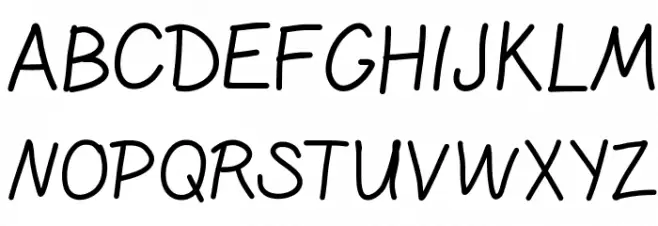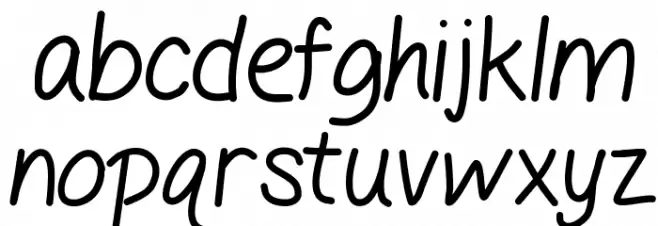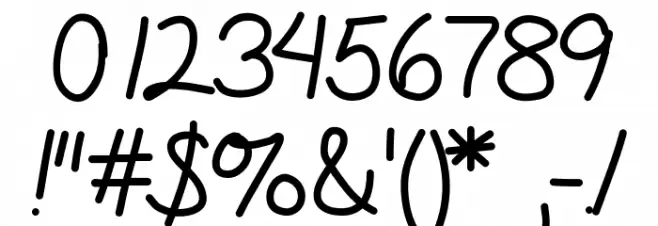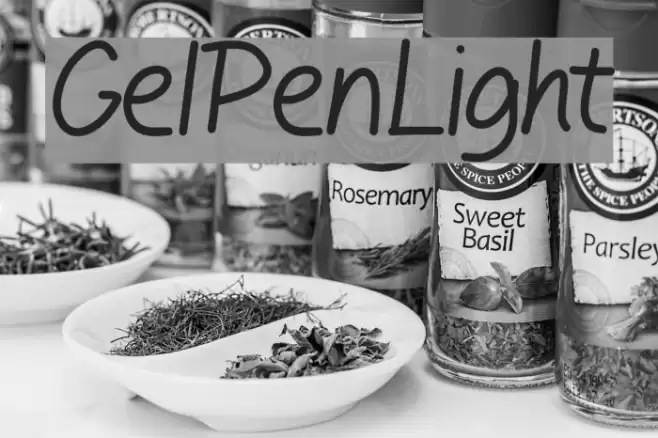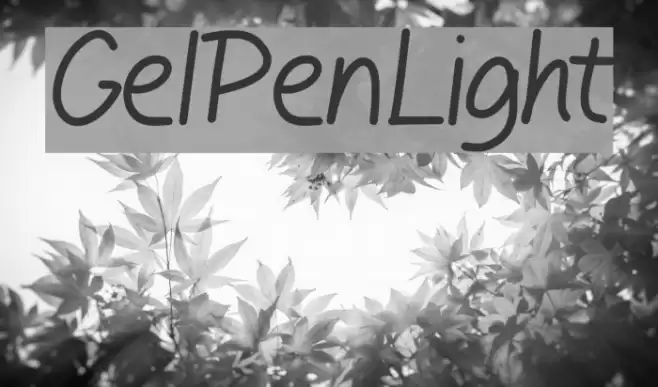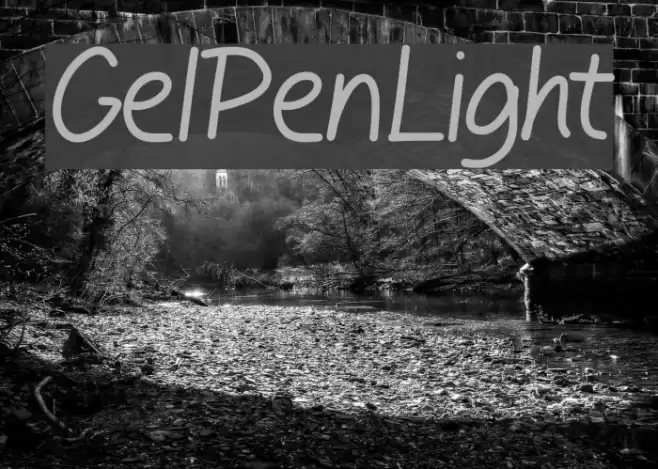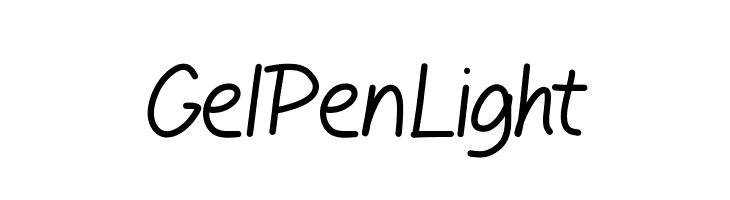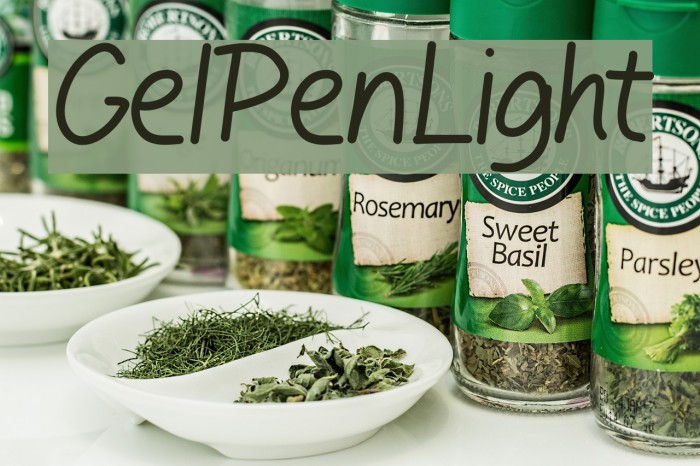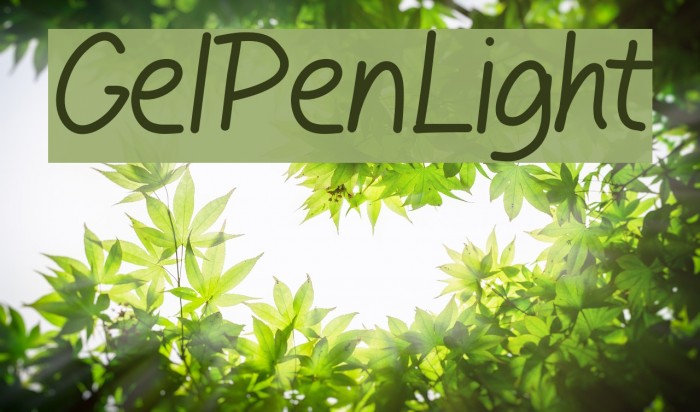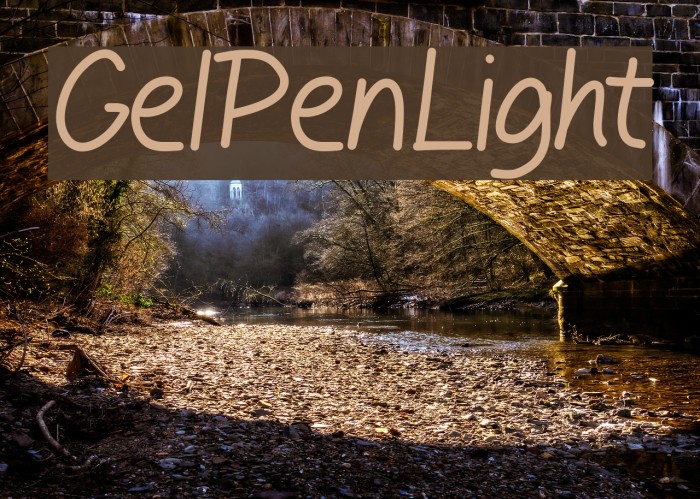
GelPenLight
This font exudes a casual and friendly handwritten style, characterized by smooth, flowing curves and a consistent stroke width. The letters are slightly slanted, giving it a dynamic and informal appearance. The uppercase and lowercase letters maintain a uniform height, contributing to its legibility and charm. The numbers and special characters are crafted with the same fluidity, ensuring a cohesive look across all text. This font is perfect for projects that require a personal touch, such as invitations, greeting cards, or casual branding materials.
A casual, handwritten font with smooth curves and consistent stroke width.
- Proposed Projects: Ideal for invitations, greeting cards, personal branding, and informal communication.
- Overall Style: Casual
- Use Case: Headlines, Informal text, Personal projects